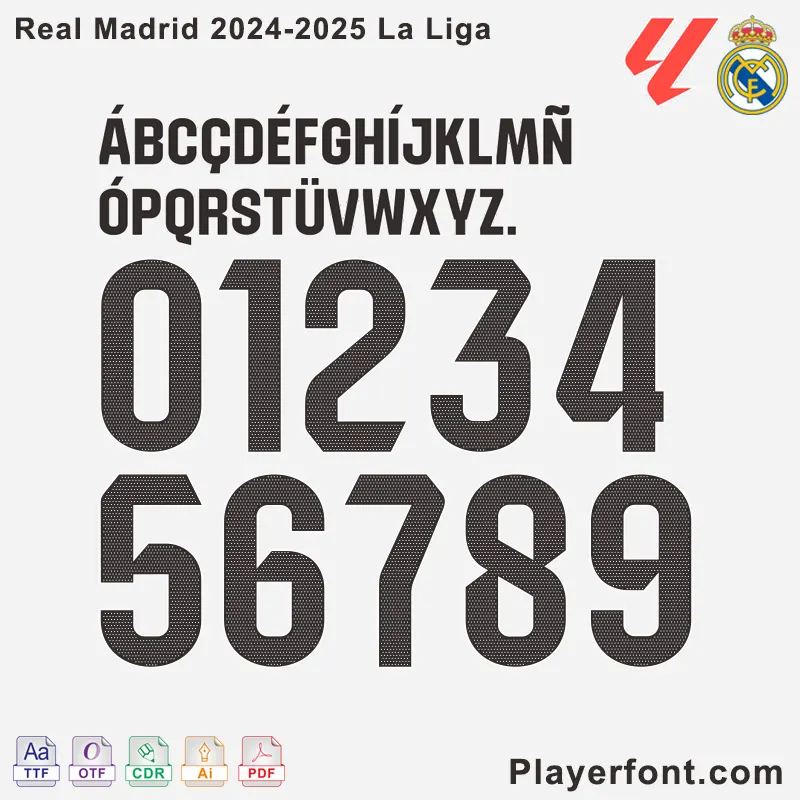
Buy the Real Madrid LaLiga 2024-2025 Font Can be used custom Real Madrid 2024-25 jersey name set. This season Real Madrid La Liga 2024-2025 font uses La liga unified font. There is no Club logo added to the bottom of the numbers, but the numbers are filled with circular dots.